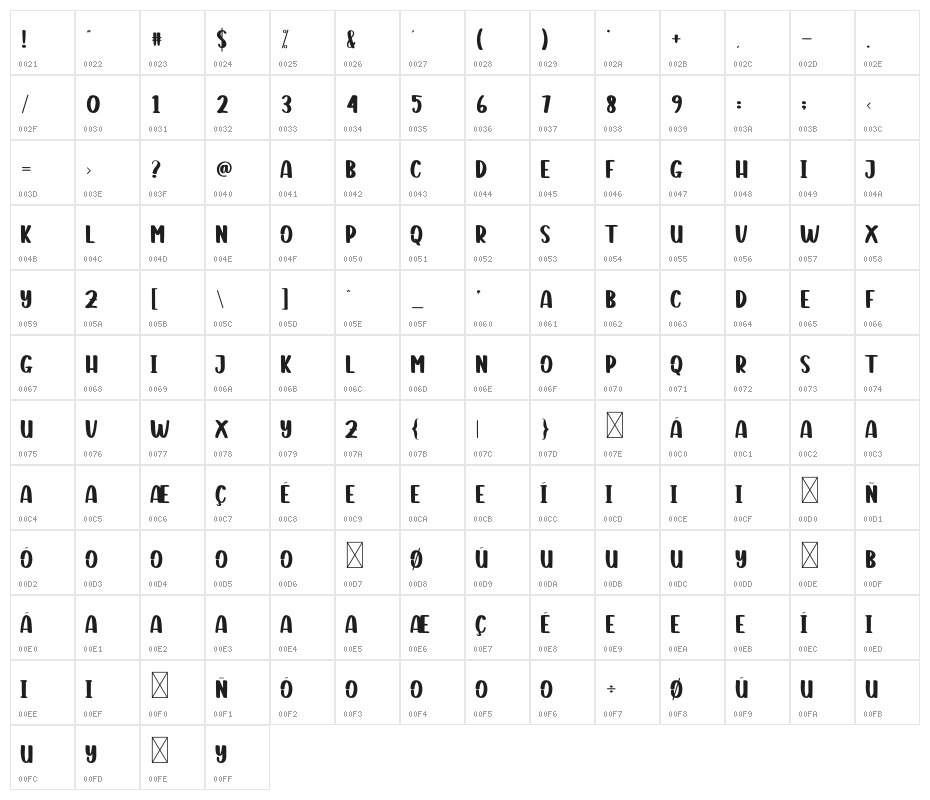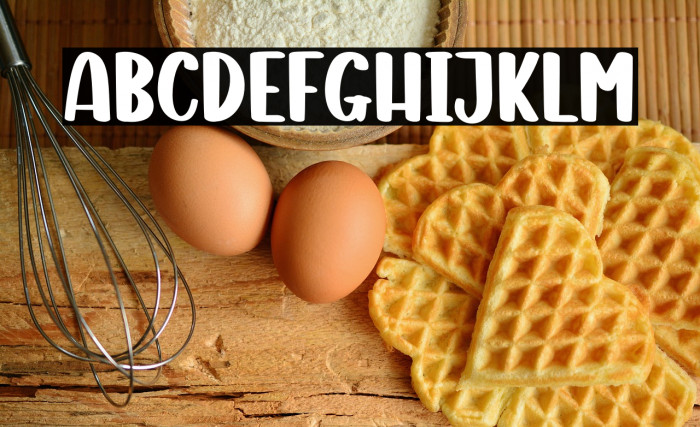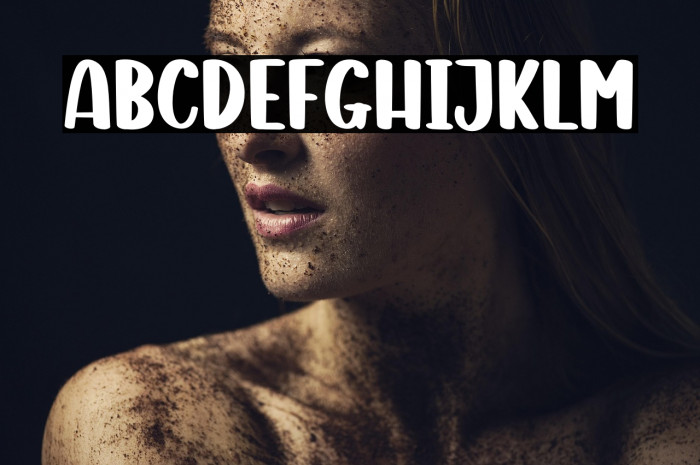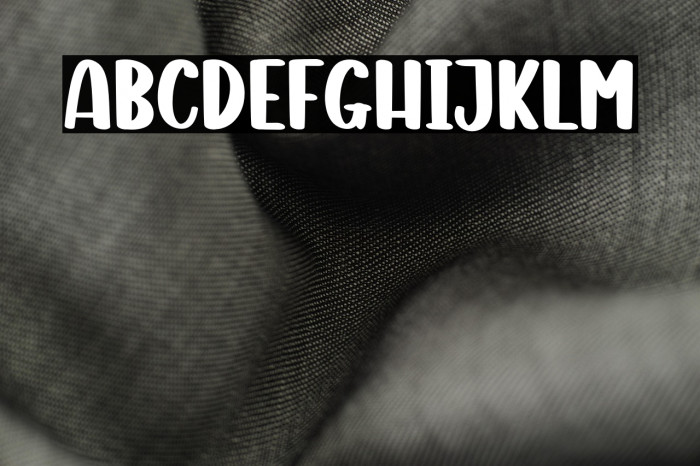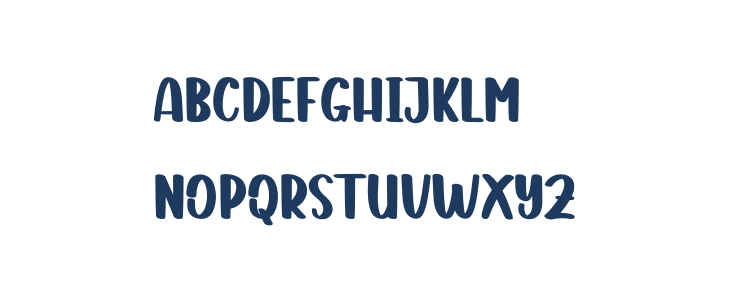
Comic Series Font
Comic Series Description
This font features a playful and bold style, reminiscent of classic comic book lettering. The characters are rounded and have a hand-drawn appearance, adding a whimsical and informal touch. The uppercase and lowercase letters maintain a consistent weight, providing a uniform look. The numbers and special characters are crafted to match the overall playful aesthetic, making it suitable for creative and fun projects. The strokes are thick, contributing to a strong visual impact, while the spacing between characters is balanced to ensure readability.
| Overall Style | Playful, Comic |
| Proposed Projects | Ideal for comic books, children's books, playful branding, and creative posters. |